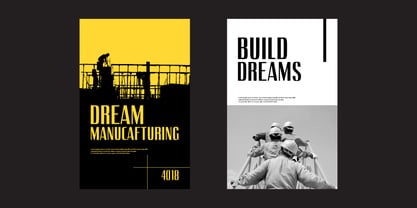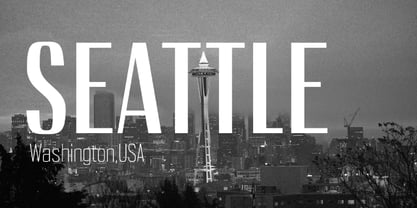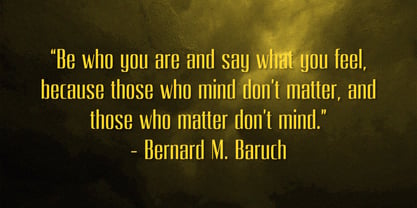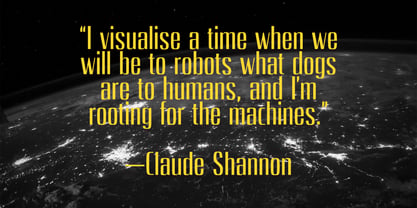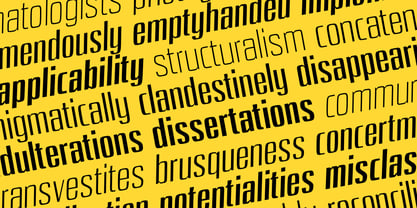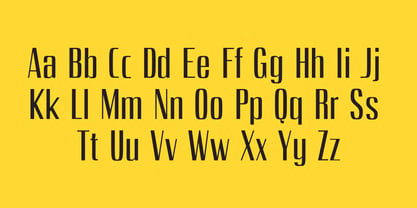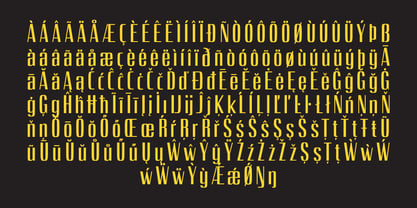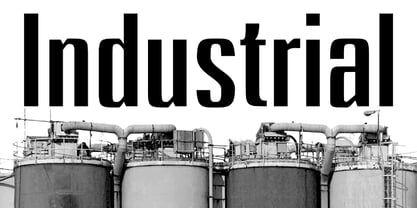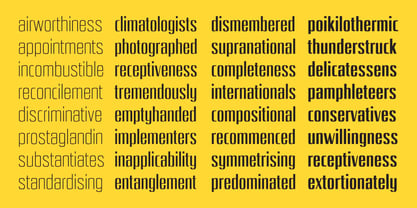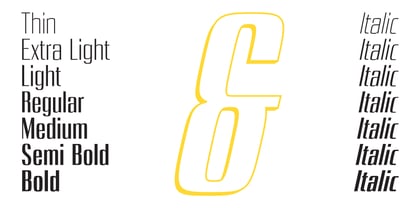
Carrieson
by Waftype
The Carrieson Font Family was designed by Wafi Zimamul and published by Waftype. Carrieson contains 14 styles and family package options. More about this family
Carrieson is a modern sans-serif typeface that blends contemporary design technology with clean, precise letterforms. It includes a variable font and offers 14 styles in total 7 weights and 7 italics. With support for 120 languages and 402 glyphs, Carrieson is perfect for branding, logos, packaging, headlines, and any visual project that demands a sleek and professional look.
Designers: Wafi Zimamul
Foundry: Waftype